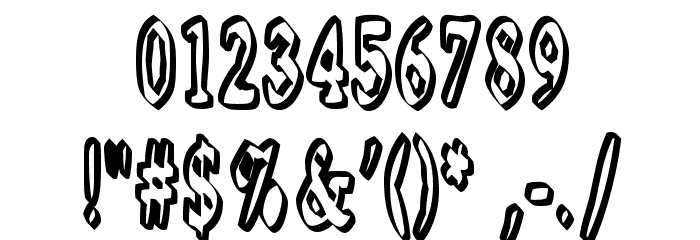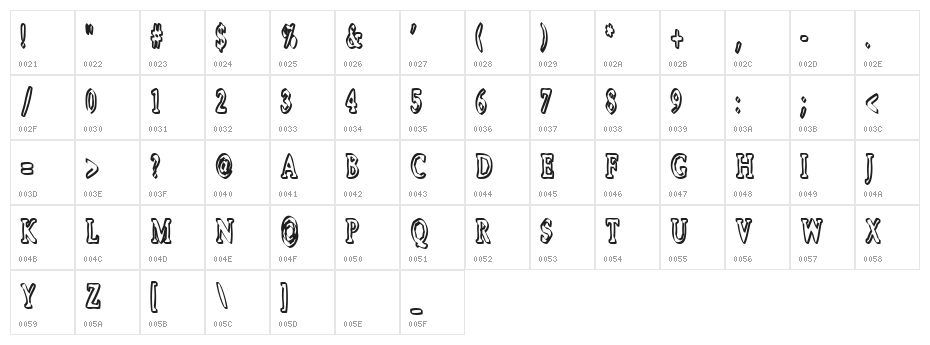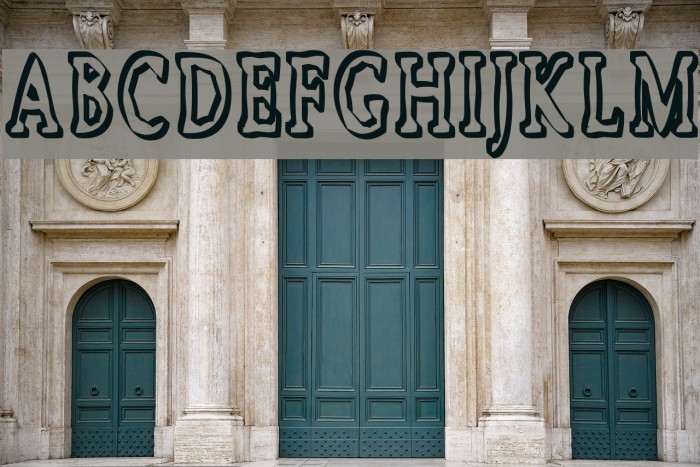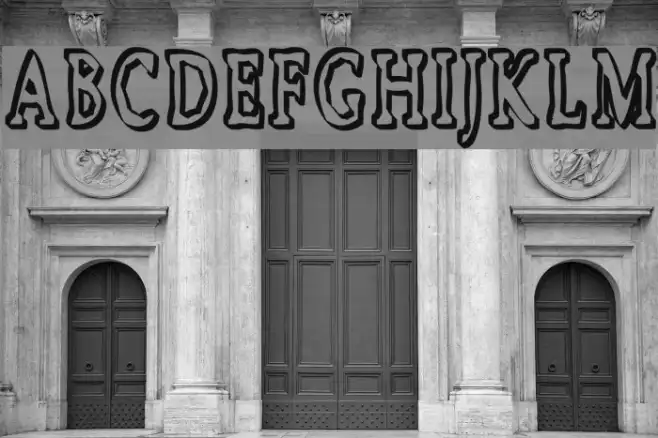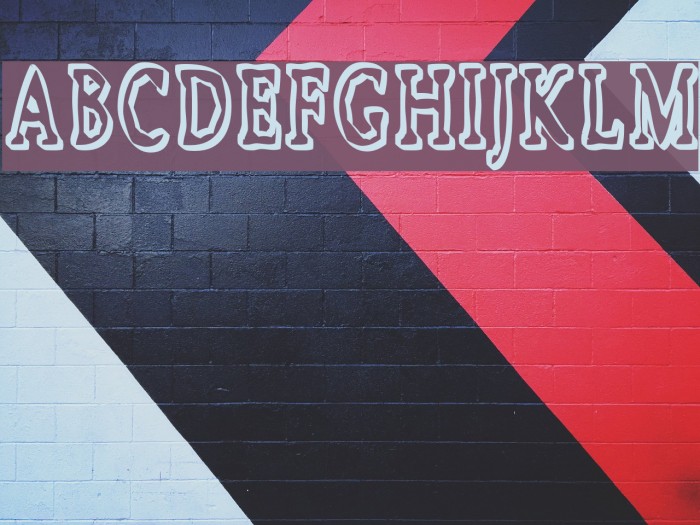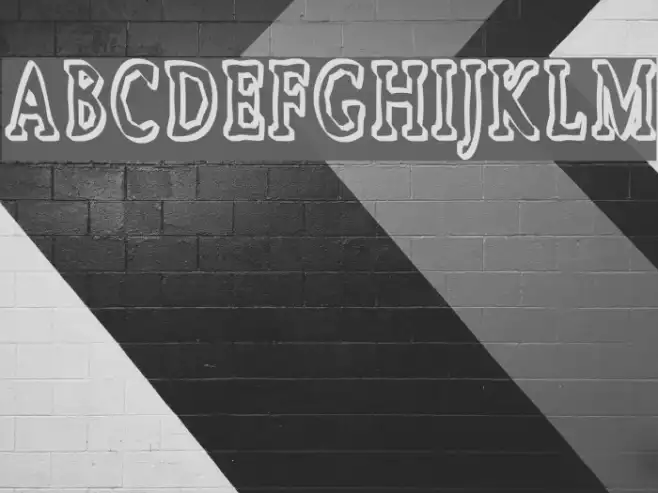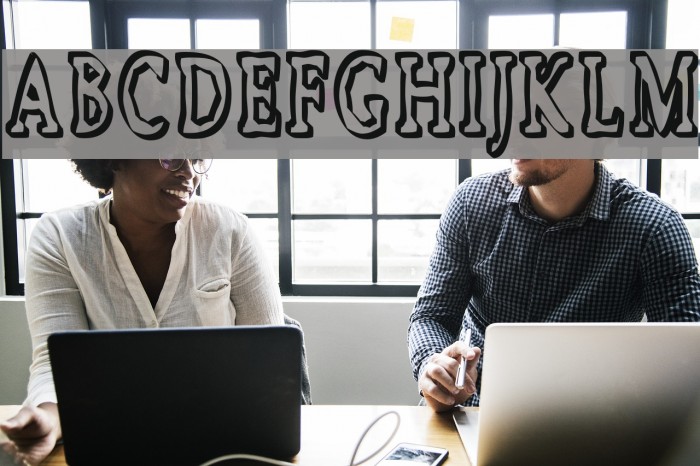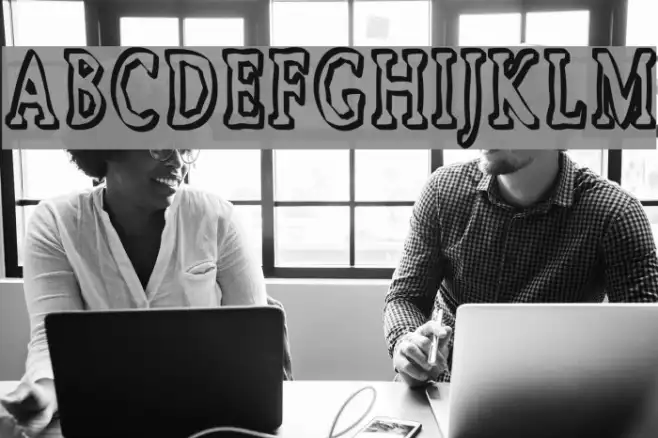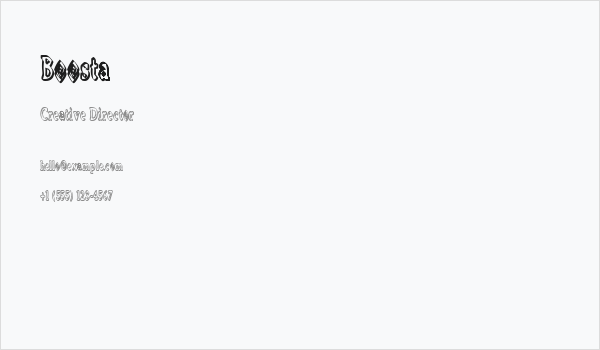
Boosta Font
Boosta Description
This font features a bold and playful design with a hand-drawn aesthetic. Each character is outlined with a thick, uneven stroke, giving it a dynamic and energetic feel. The letters have a slightly distorted appearance, adding to their whimsical charm. The uppercase and lowercase letters maintain a consistent style, while the numbers and special characters are equally expressive. This font is perfect for projects that require a fun and informal touch, such as children's books, posters, or creative branding.
| Overall Style | Playful, Whimsical, Hand-drawn |
| Use Case | Headlines, Posters, Creative Branding |
| Proposed Projects | Ideal for children's books, playful posters, creative branding, and informal invitations. |